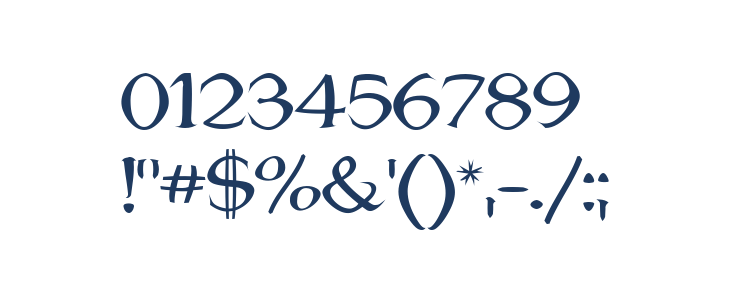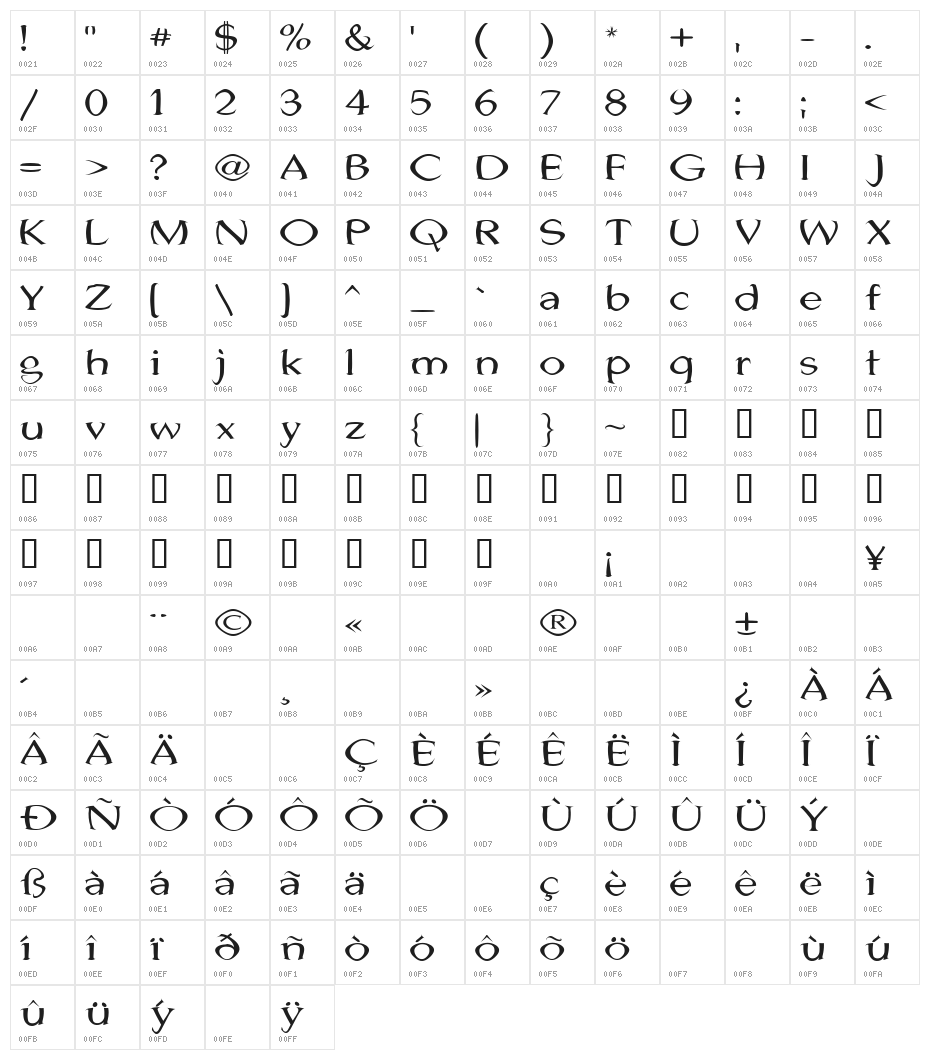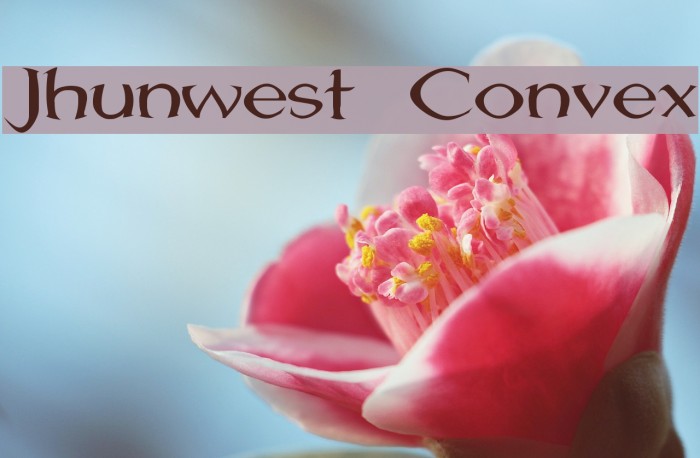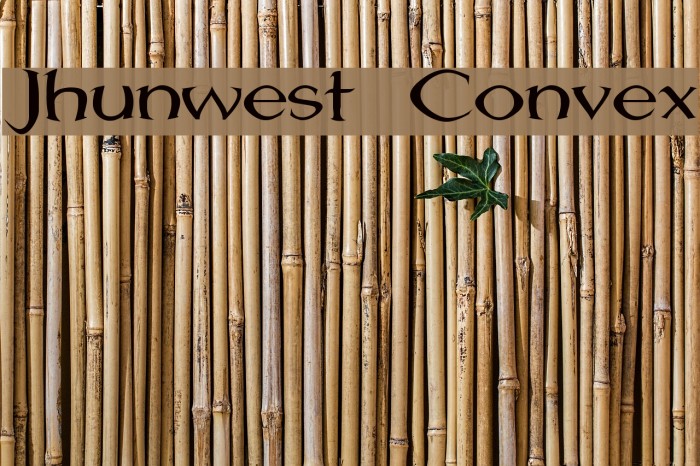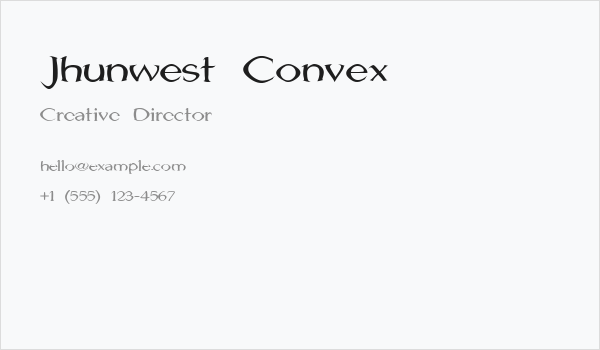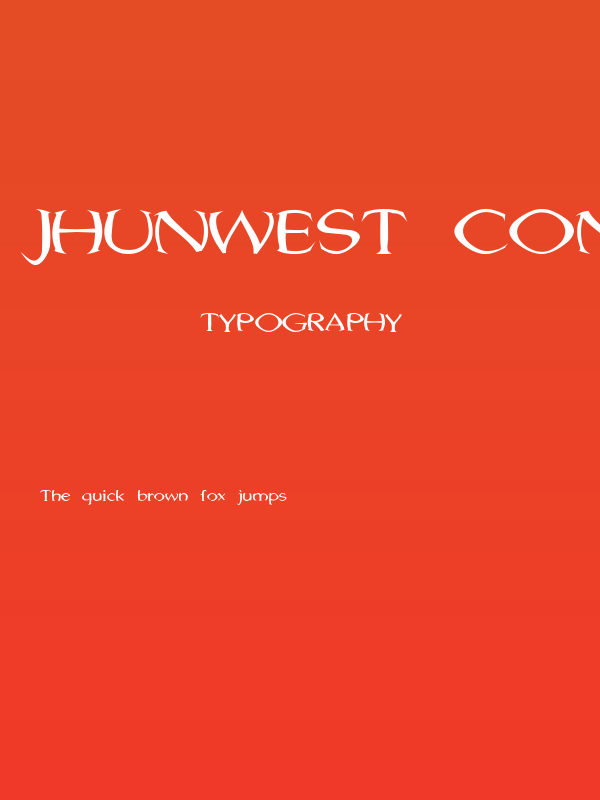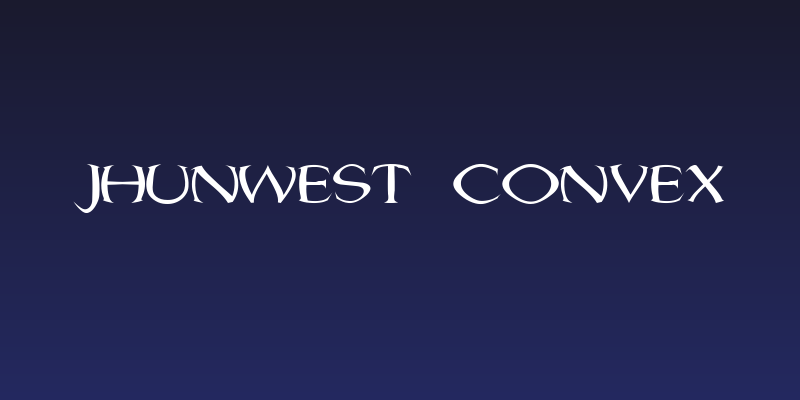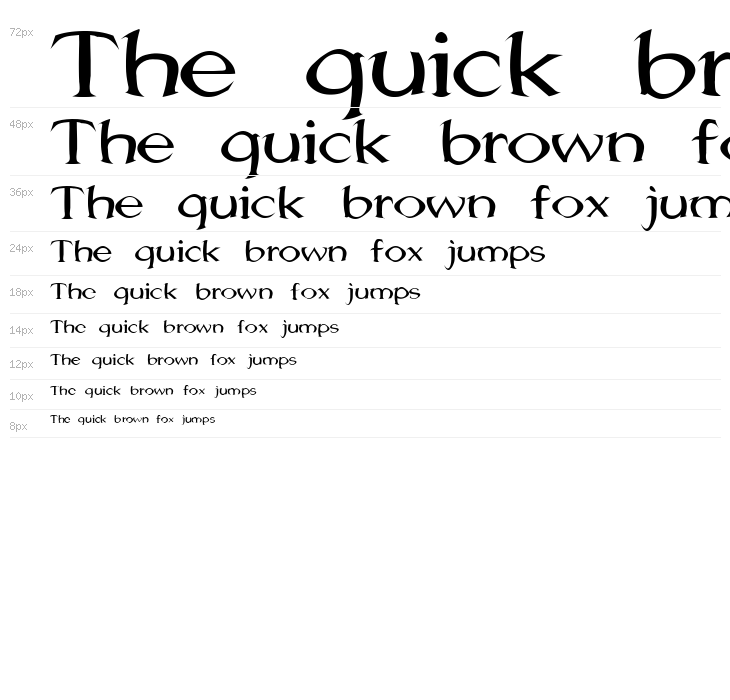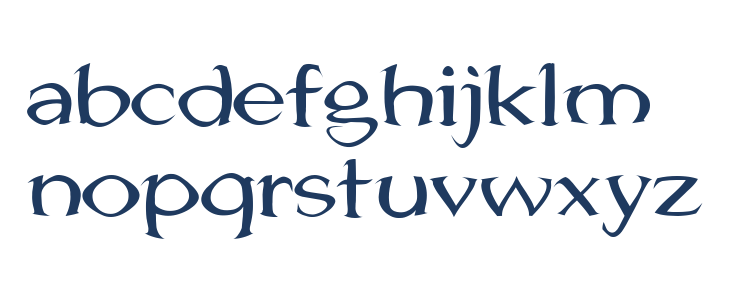
Jhunwest Convex Font
Jhunwest Convex Description
This font features a unique blend of sharp and smooth elements, creating a dynamic and eye-catching appearance. The uppercase letters have a bold, angular design with pronounced curves, while the lowercase letters maintain a consistent flow with slightly rounded edges. The numerals are distinct and maintain the same stylistic elements, ensuring readability. Special characters are creatively designed, adding to the font's overall artistic appeal. This font's distinctive style makes it suitable for projects that require a touch of elegance and creativity.